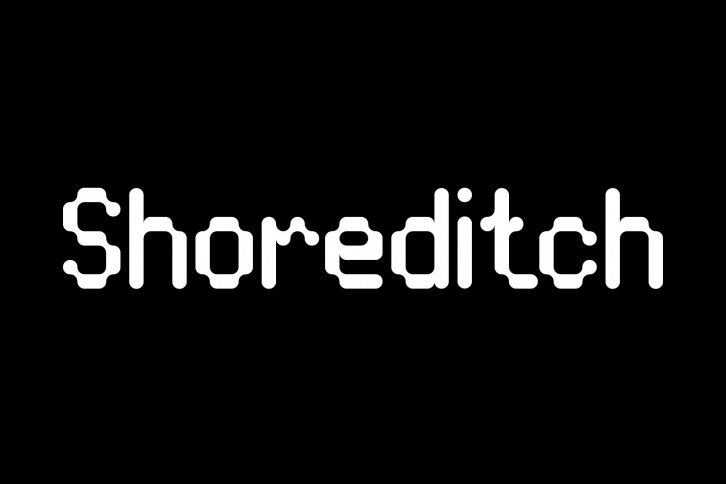
Type Junction Shoreditch is a fully-kerned upper and lowercase typeface built for the tech industry and similar projects. Shoreditch is built from the LED screens that adorn Londons transport stations. This typeface features 100+ characters including punctuation and symbols.